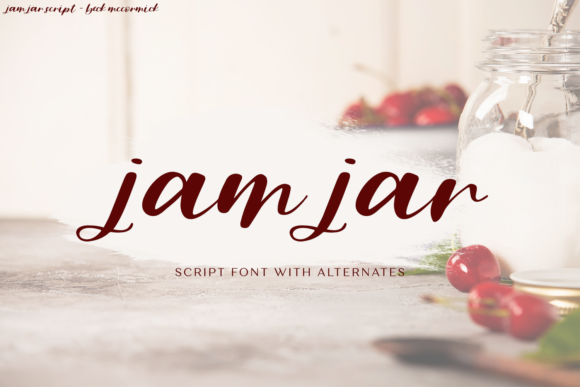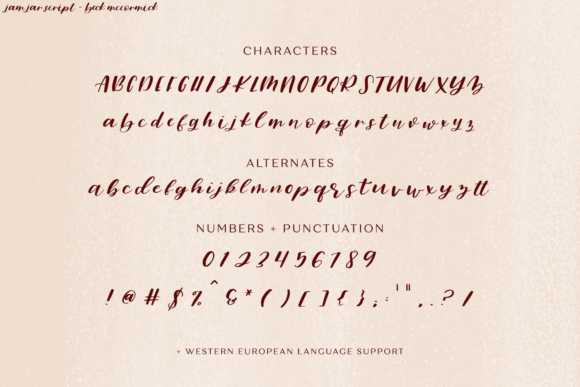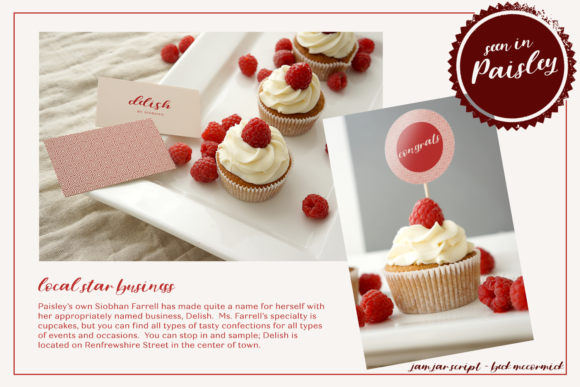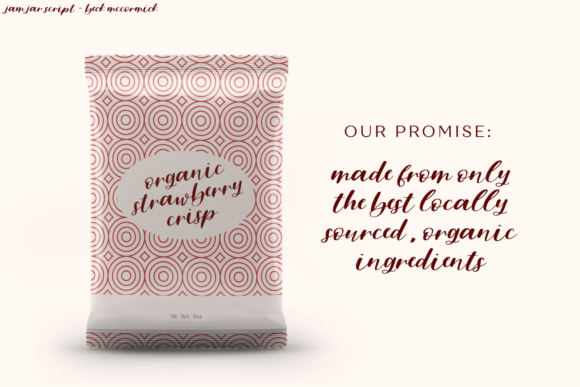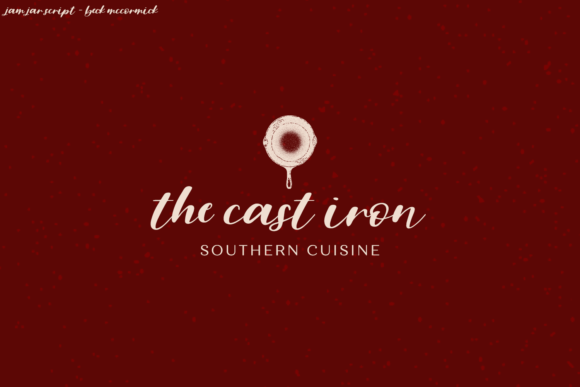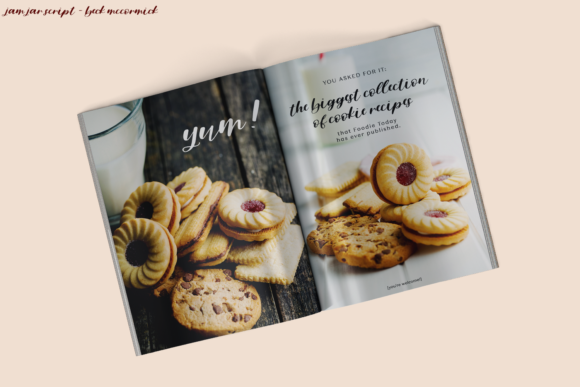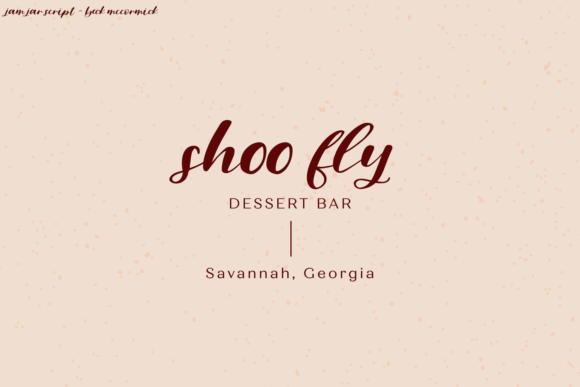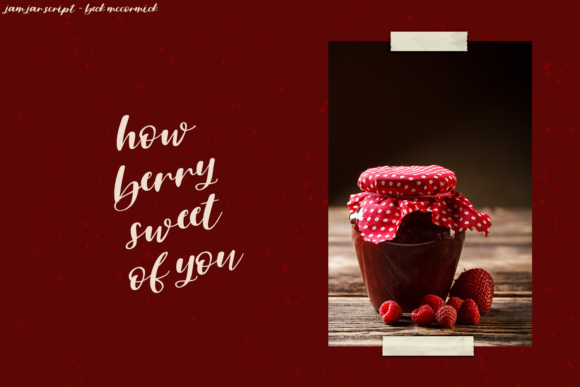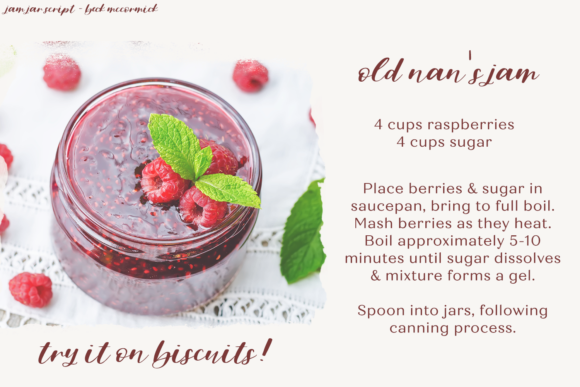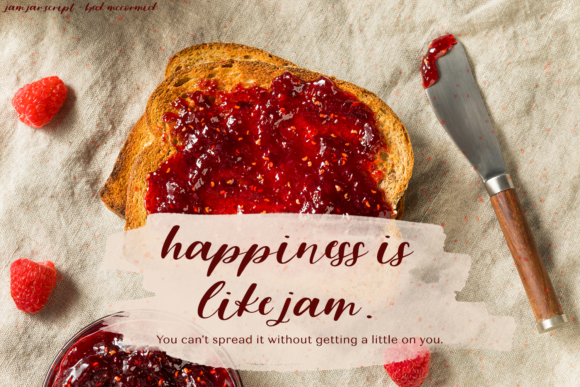
Jam Jar Font
About Jam Jar Font
Fall in love with this sweet and delicious font: Jam Jar is a uniquely fresh and whimsical font with an undeniably lovely charm.